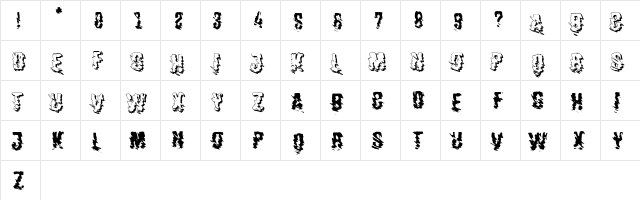
horrorCORE Regular
horrorCORE carries an unsettling edge — its distorted letterforms are built to unsettle, perfectly suited to horror, Halloween, and dark creative work.
Ideal for Halloween projects, horror film titles, haunted house signage, and dark editorial design.
Font Pairing: Pair with a clean neutral sans-serif for body copy to let horrorCORE's character lead without overwhelming the composition.
Pro Tip: horrorCORE works best as a headline or focal element. Pair it against plain, neutral body text to amplify the contrast.